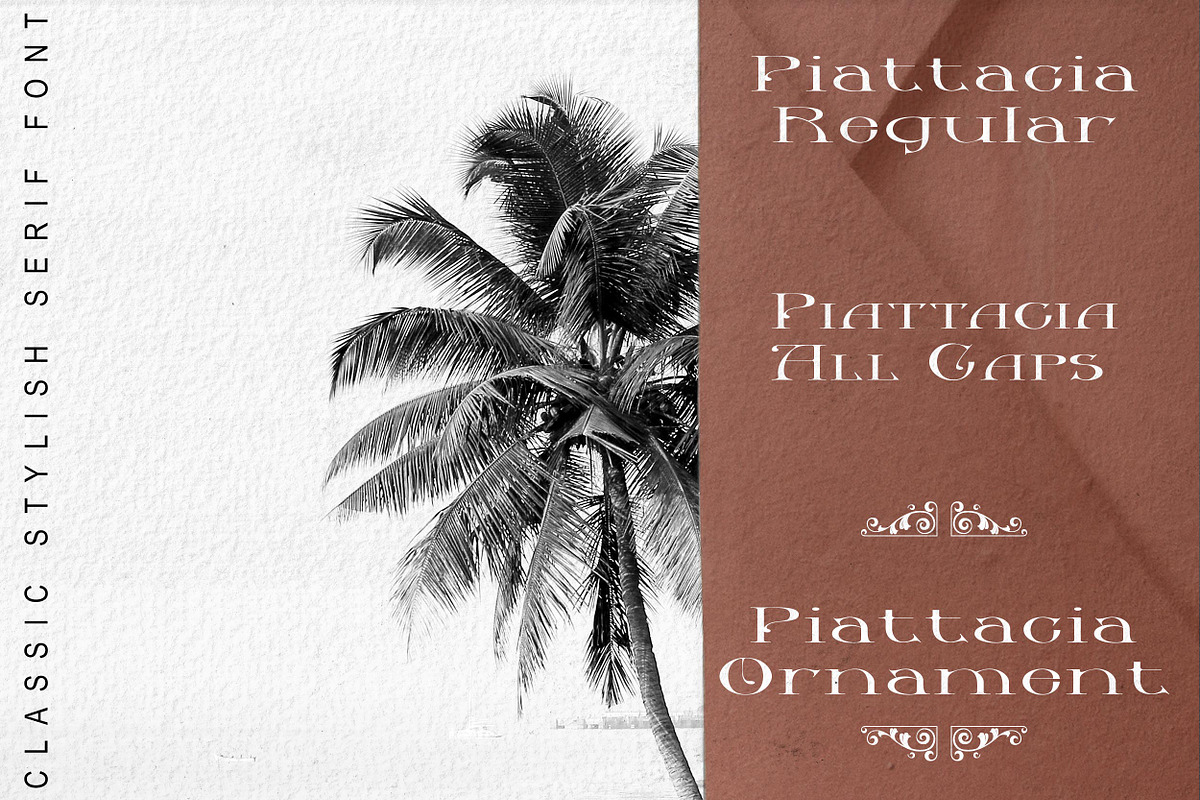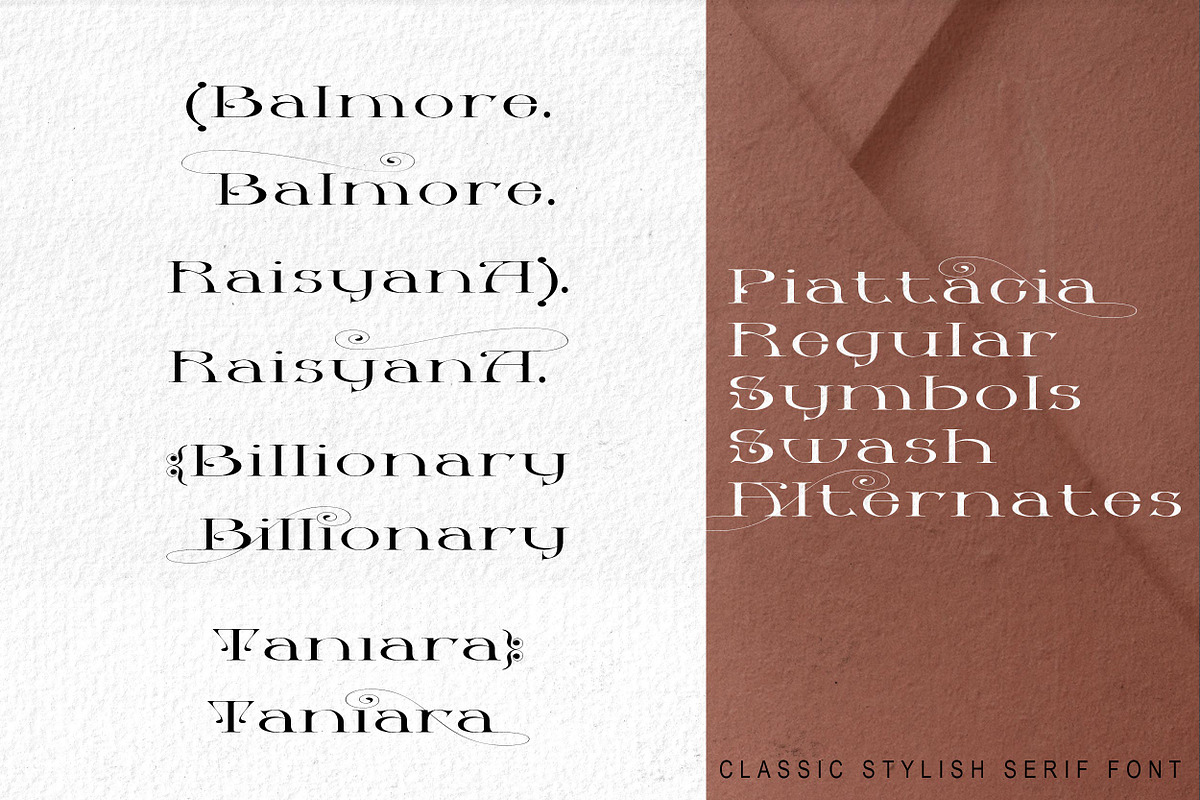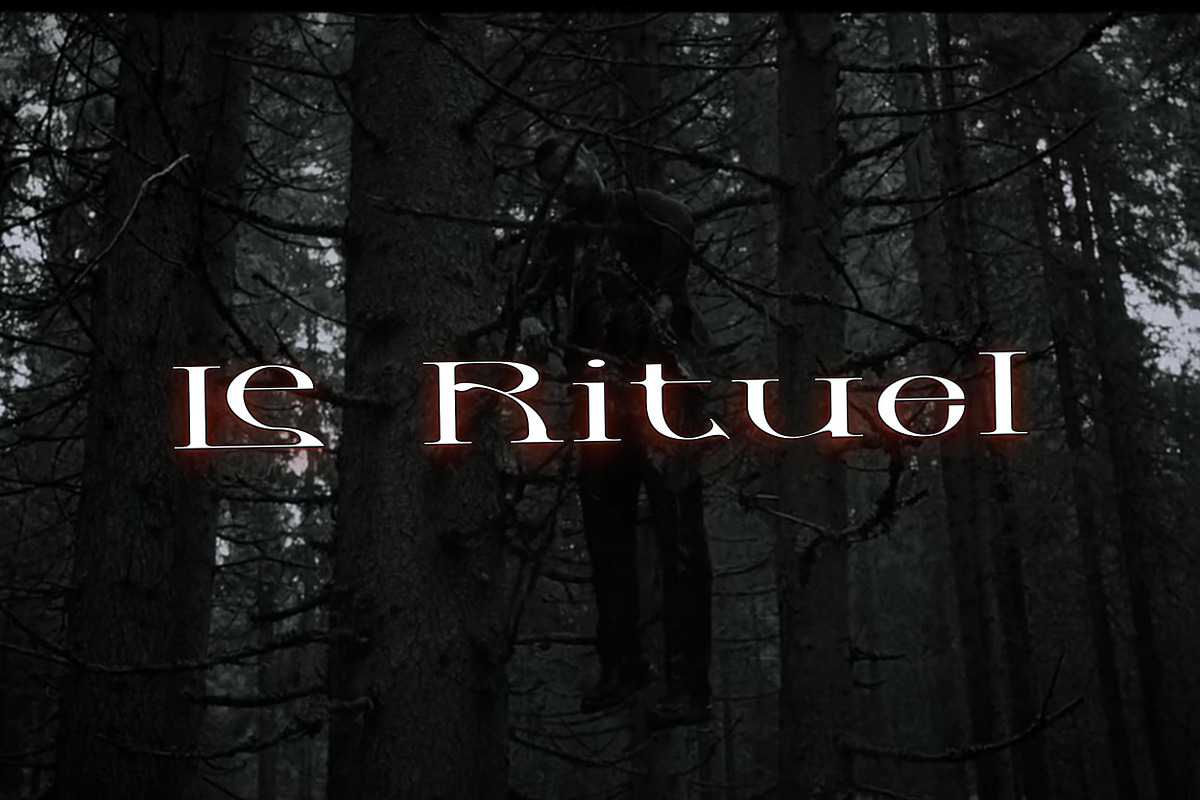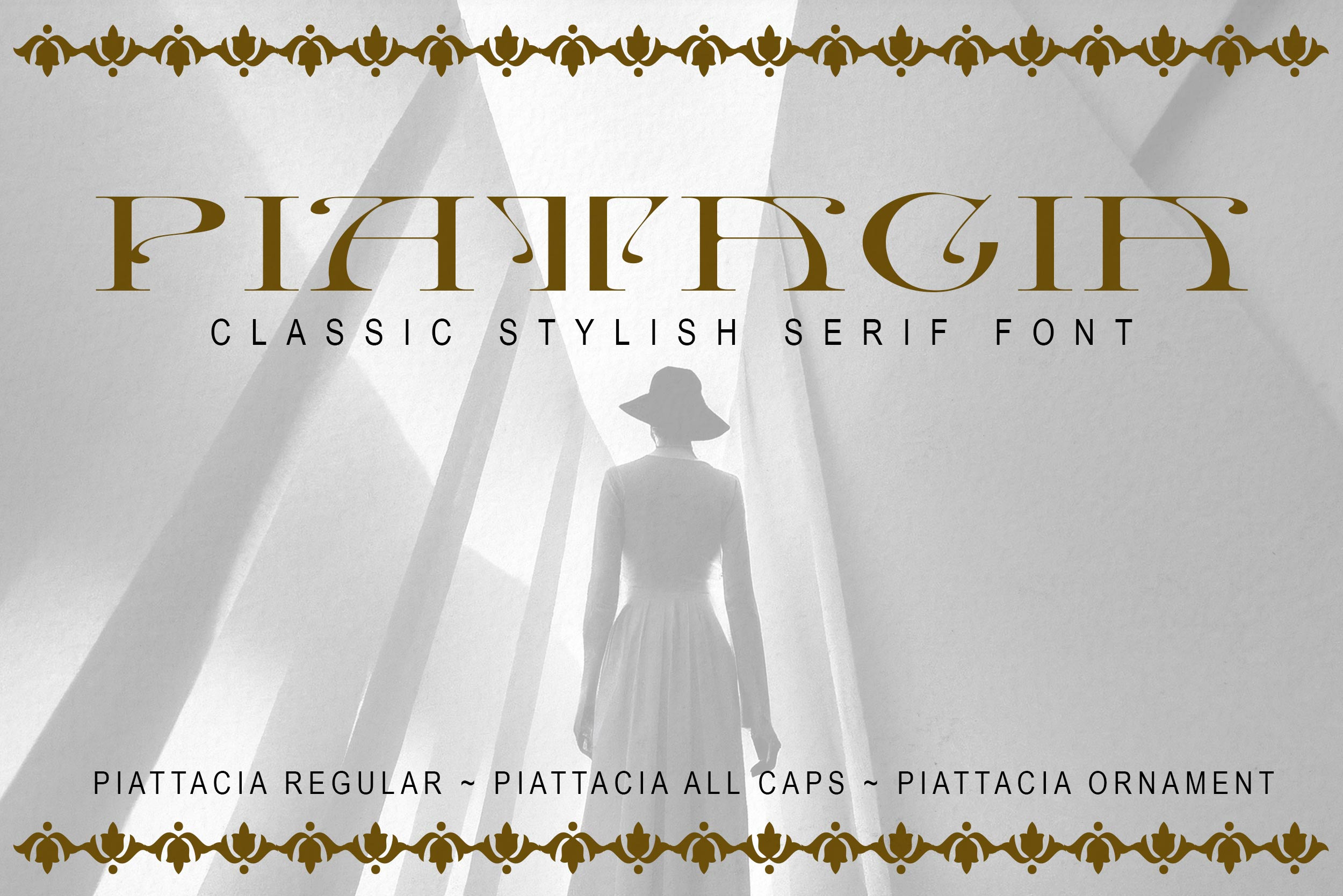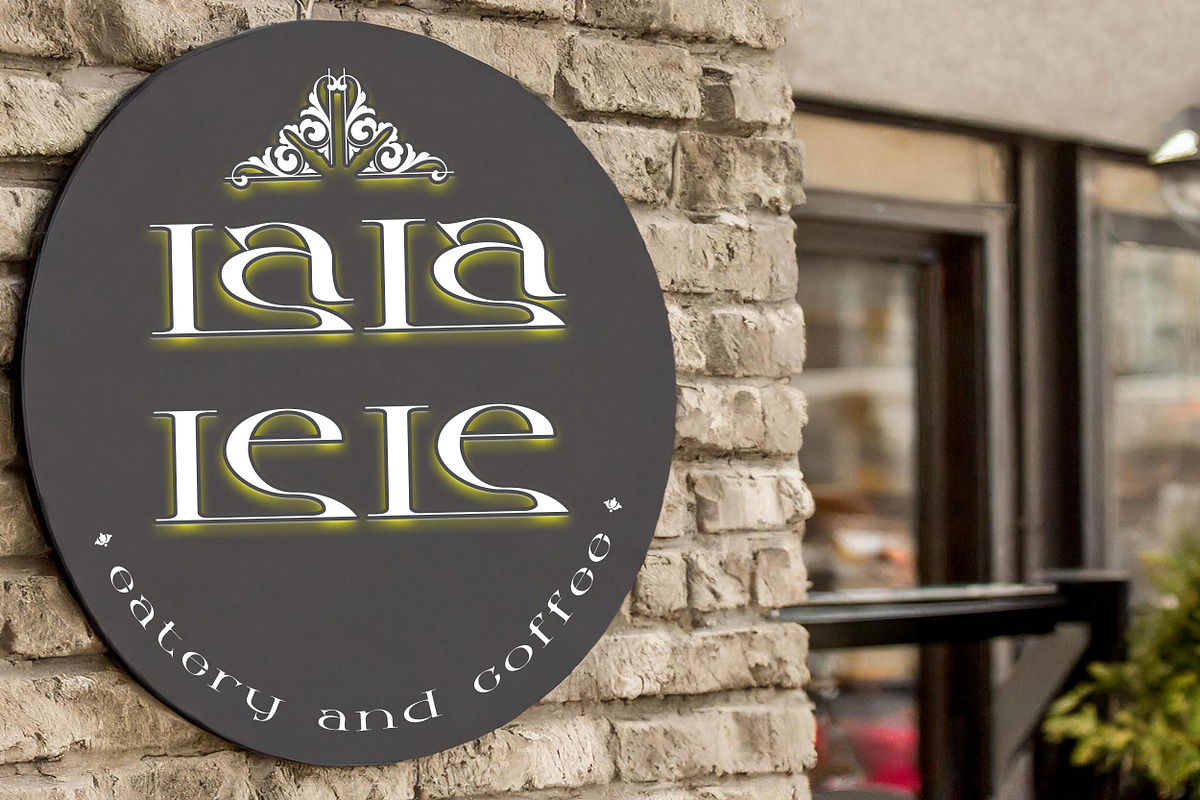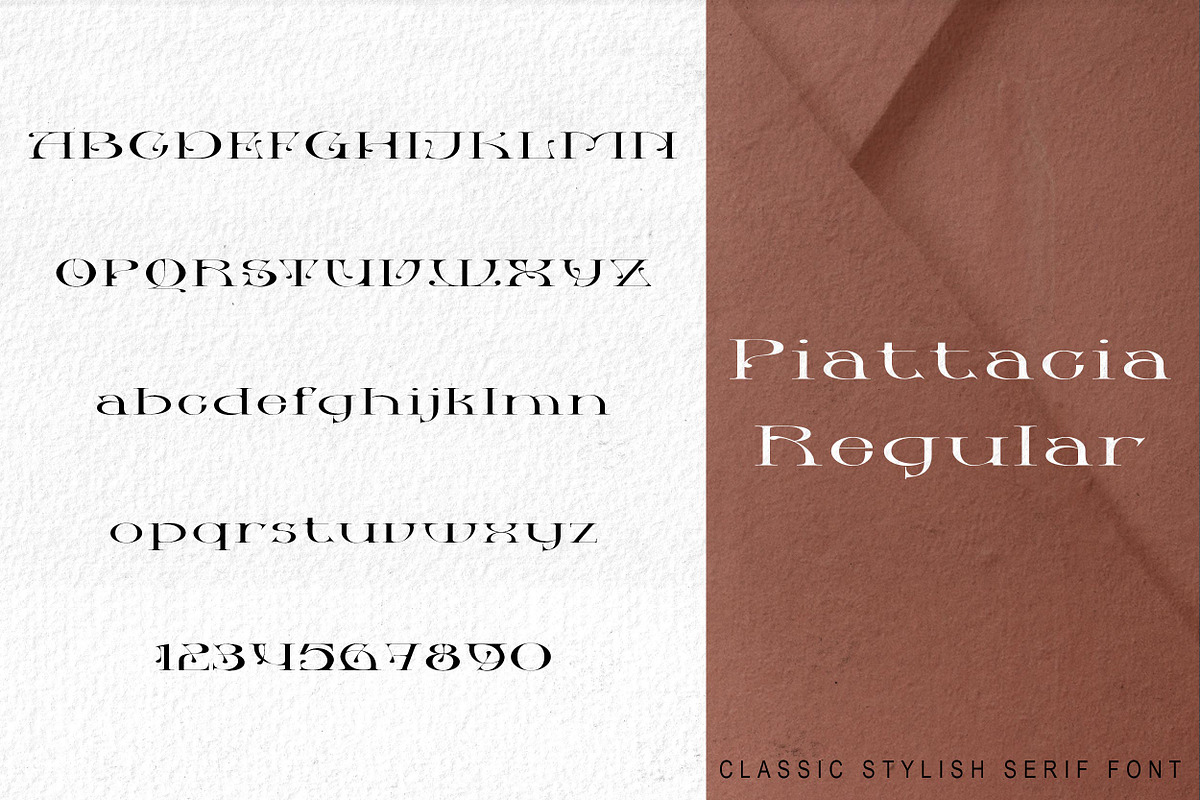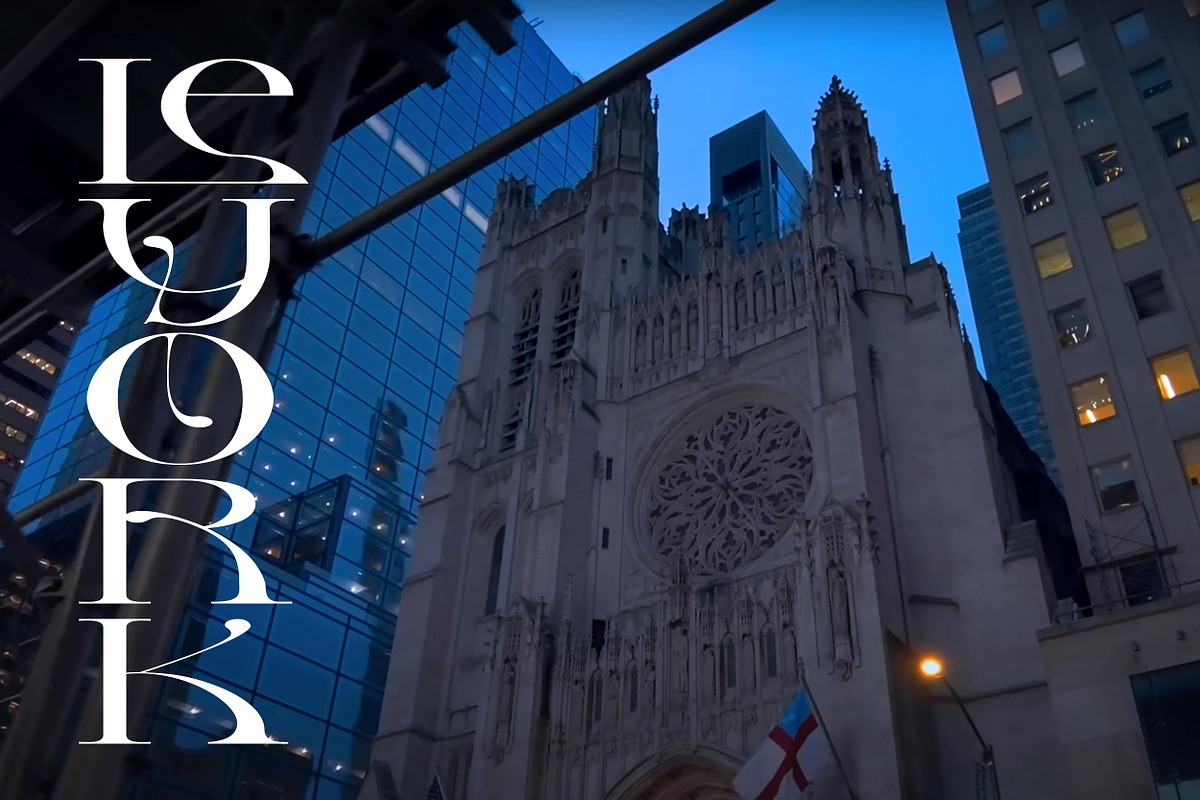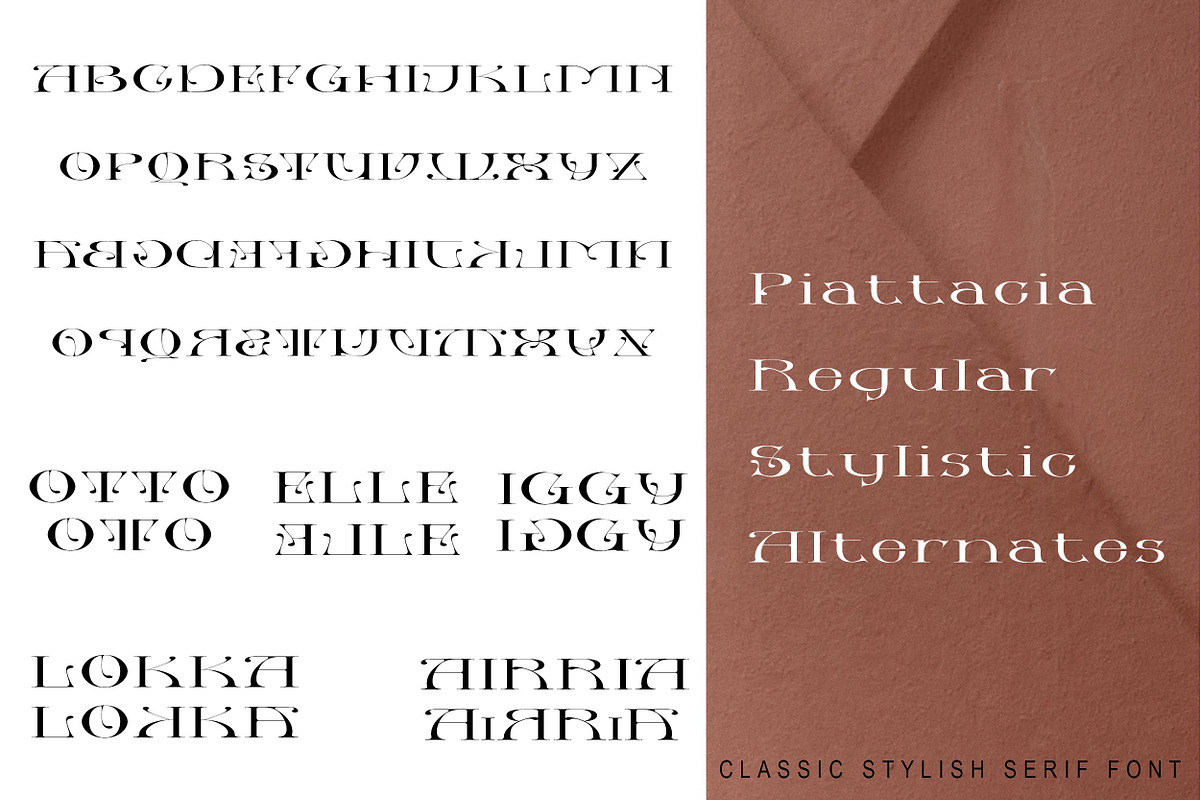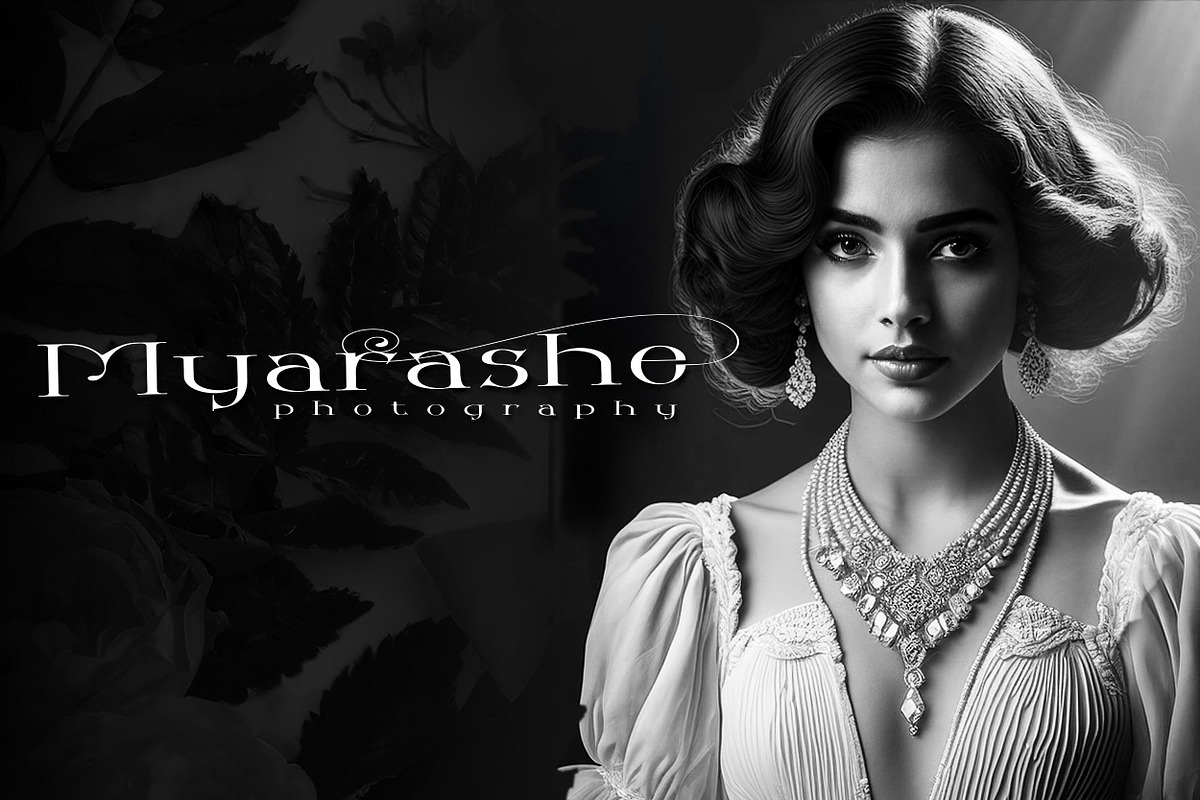
Piattacia font family
PIATTACIA is an exquisite font that seamlessly marries classic elegance with contemporary charm. Its gracefully crafted letterforms embody a sense of refinement and timeless sophistication. Each character is thoughtfully designed, showcasing delicate lines and gentle curves that elevate its visual appeal.
This font is ideally suited for a diverse array of applications, from elegant wedding invitations and luxurious branding to marketing materials that demand an air of sophistication. PIATTACIA transcends mere typography; it is a true work of art that enhances the aesthetic quality of any design.
With a variety of styles and weights available, PIATTACIA provides designers with the versatility to express their creativity while maintaining exquisite harmony. Allow every word you compose to resonate with grace and elegance through the enchanting beauty of PIATTACIA.